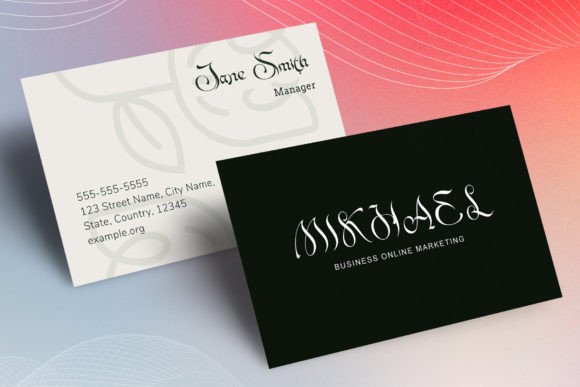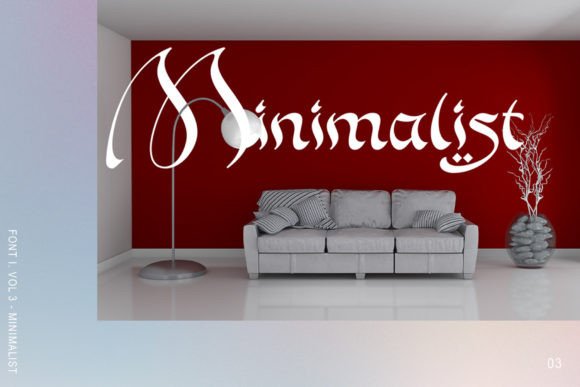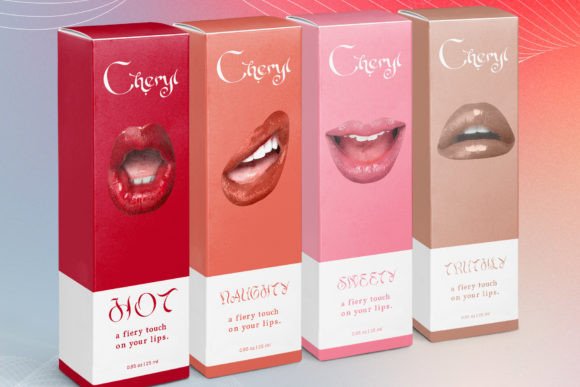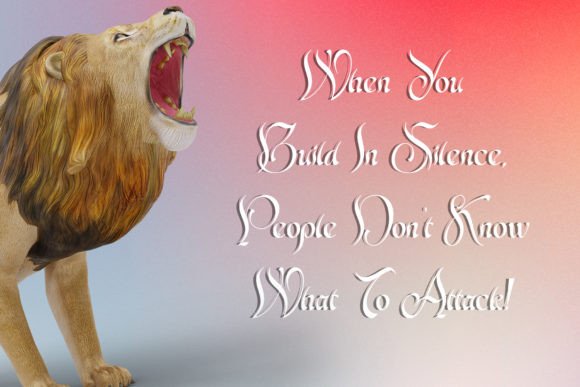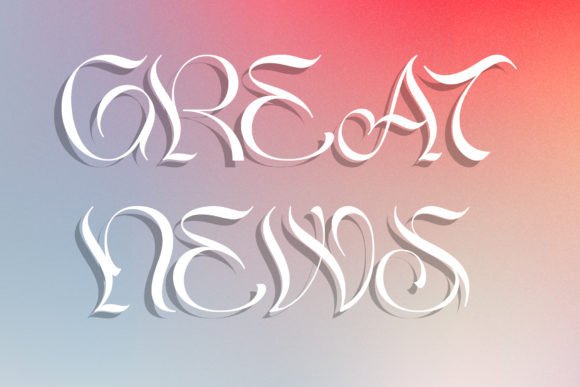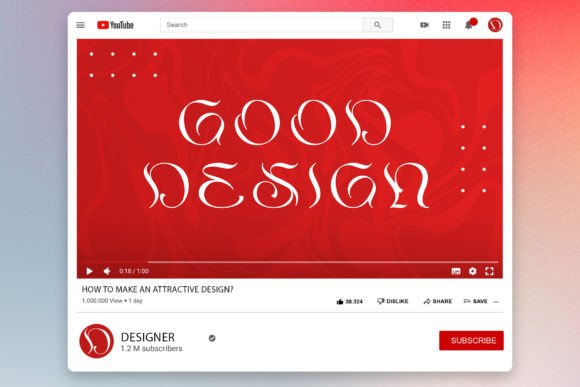
Introduction to Romios Font
Have you ever been working on a design project, pouring your heart and soul into it, and then suddenly, you need that one special font to bring it all together? For many designers, that moment of inspiration is what makes all the difference between a good design and a great one. And that’s exactly what the Romios Font does – it adds a touch of magic to any design, making it stand out and leave a lasting impression.
With its unique wavy design and organic curves, the Romios Font is a game-changer for designers looking to add a sense of energy and motion to their projects. Whether you’re working on a logo, packaging, or advertising campaign, this font is sure to bring a level of sophistication and creativity that will elevate your design to the next level. And the best part? It’s available for free download, making it a valuable resource for designers of all levels.
- Perfect for designers seeking a distinctive font to elevate their creative project, the Romios Font is a valuable design resource.
Honest Review: Romios Font
As a designer, I’m always on the lookout for high-quality design resources to enhance my creative projects. Recently, I stumbled upon the Romios Font, and I must say it’s been a game-changer. This free download has been a great addition to my design toolkit.
What works well: ✨ The Romios Font is incredibly versatile, suitable for a wide range of design projects, from branding to web design. The font’s modern and sleek design makes it perfect for creating a professional and sophisticated look. I’ve used it for a client’s logo and website, and the results were stunning.
Limitations: ⚠️ While the Romios Font is an excellent resource, it’s not without its limitations. The font family is relatively small, with only a few weights and styles available. Additionally, the font may not be suitable for large blocks of text, as it can become difficult to read.
Overall impression: I’m thoroughly impressed with the Romios Font. Its high-quality design, versatility, and free download make it an excellent resource for any designer. While it has its limitations, I believe it’s a valuable addition to any design toolkit.
Romios Font is a high-quality, free download design resource ideal for creative projects that require a unique and stylish look. Its transparent background makes it perfect for overlaying on images or using as a standalone element.
Romios Font is ideal for various creative projects, including:
- Wedding invitations and event materials
- Branding and marketing materials
- Graphic design projects
- Digital art and illustrations